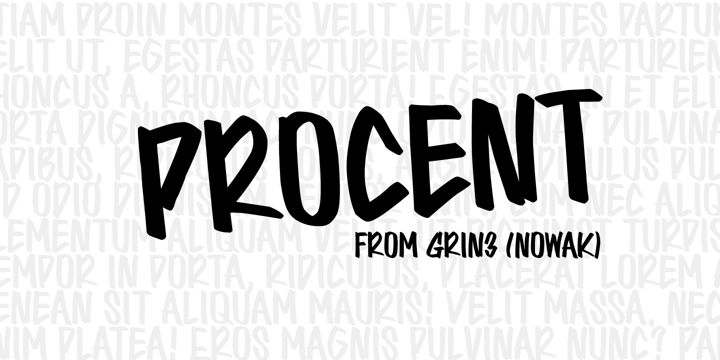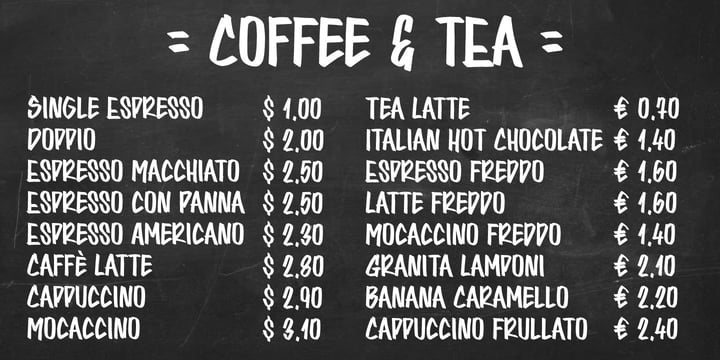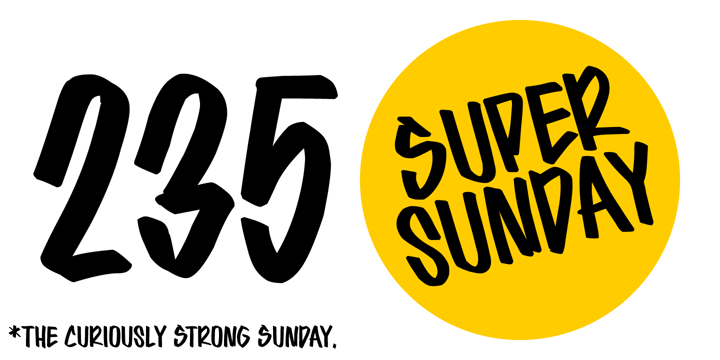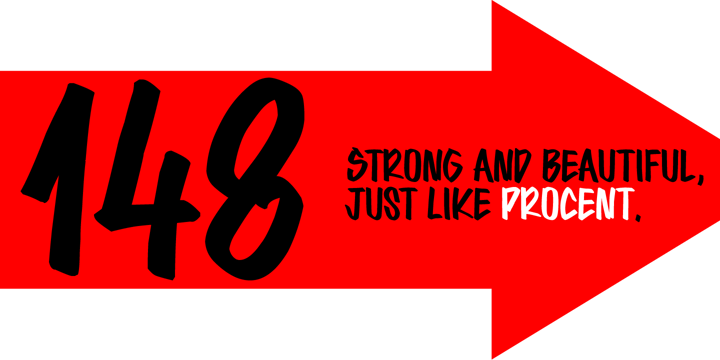
Procent
Font Family by GRIN3 (Nowak)
Procent is an all-caps, handwritten font with two variations for each letter. Procent can be used for scrapbooks, greeting cards, invitations, announcements, signs, menus, restaurant themes and more...
Language support includes Western, Central and Eastern European character sets, as well as Baltic and Turkish languages.